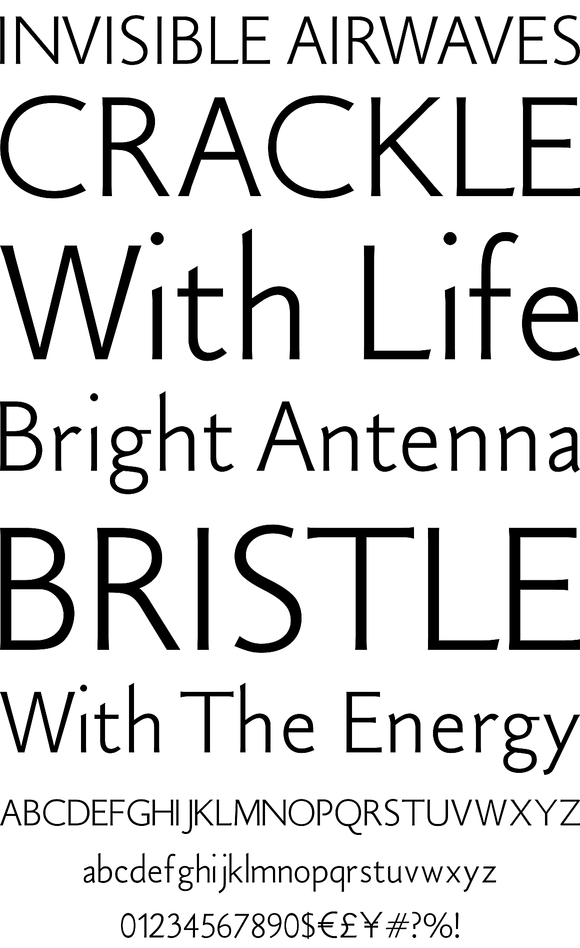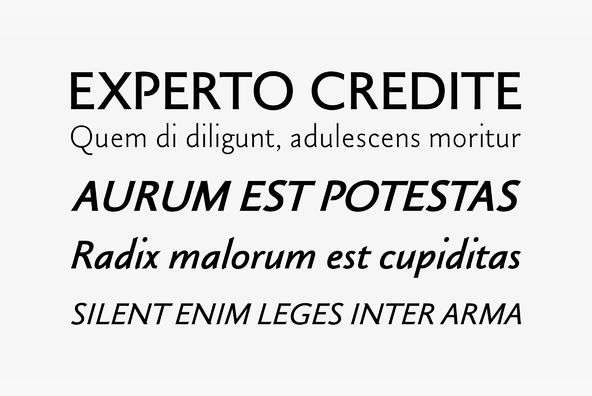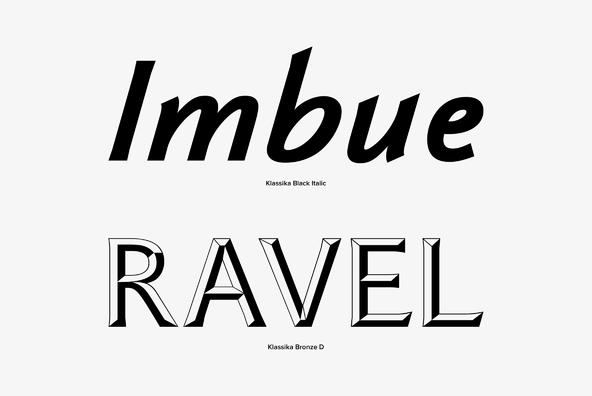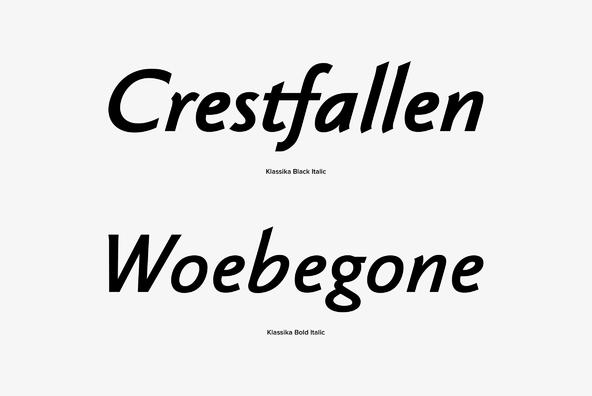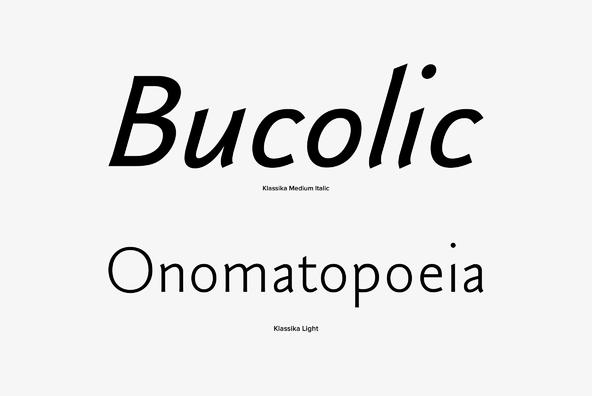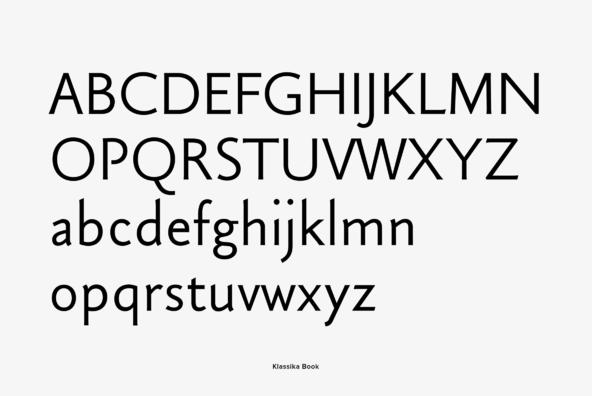
Klassika
A modern and clean sans originally designed by Hellmut G. Bomm, works great in body and headline usage. Contains a very interesting Bronze style that provides a vintage and 3d like option for headers.